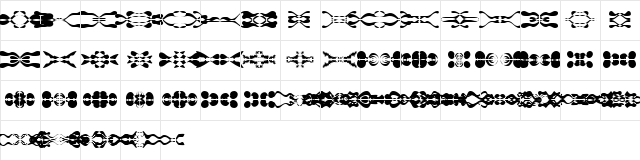
LaMorte11 Font Preview
LaMorte11 LaMorte11
LaMorte11 Font Details
Design Context for LaMorte11 Typeface
LaMorte11 is a composed and adaptable typeface that performs quietly and consistently across a wide range of design contexts.
Pro Tip: Pair LaMorte11 with a font of contrasting weight or personality to build a more expressive typographic hierarchy.